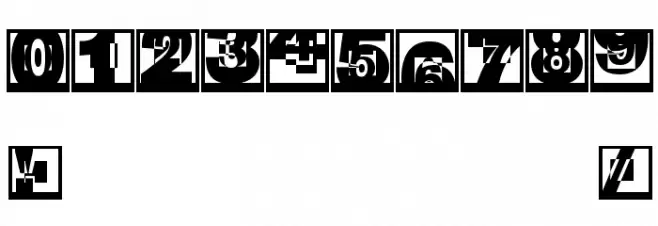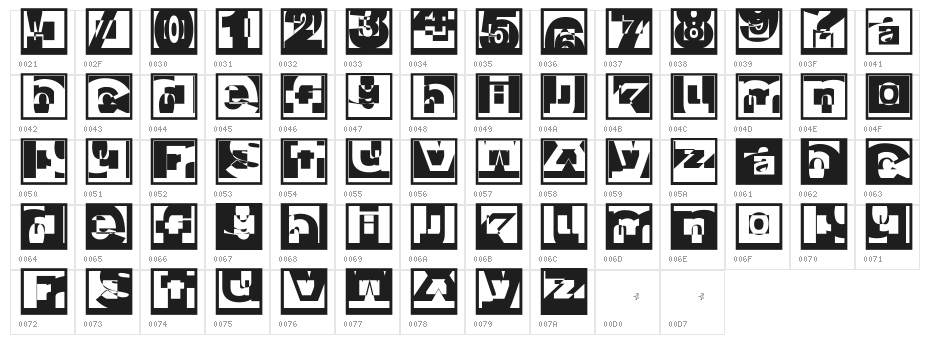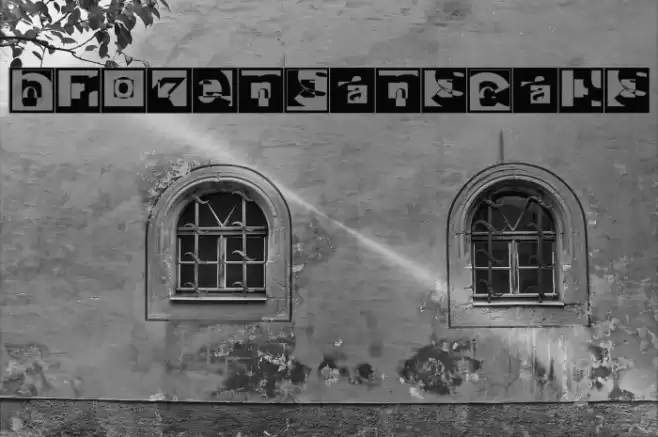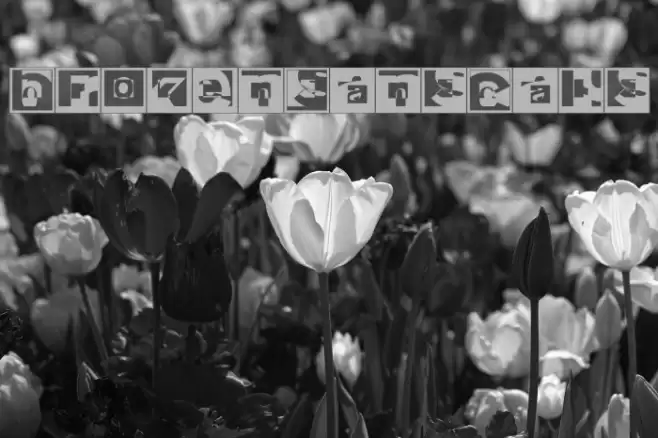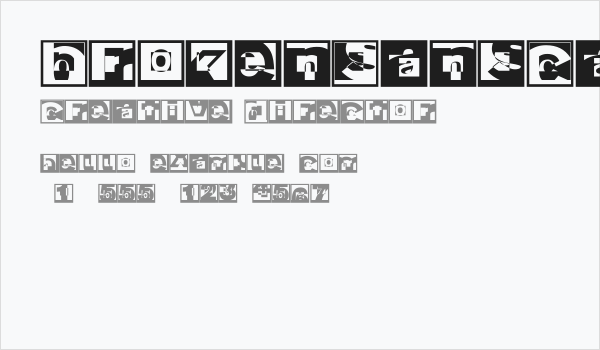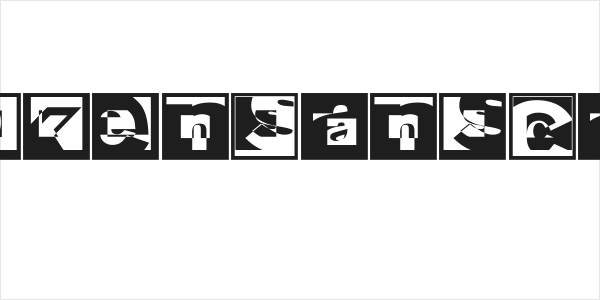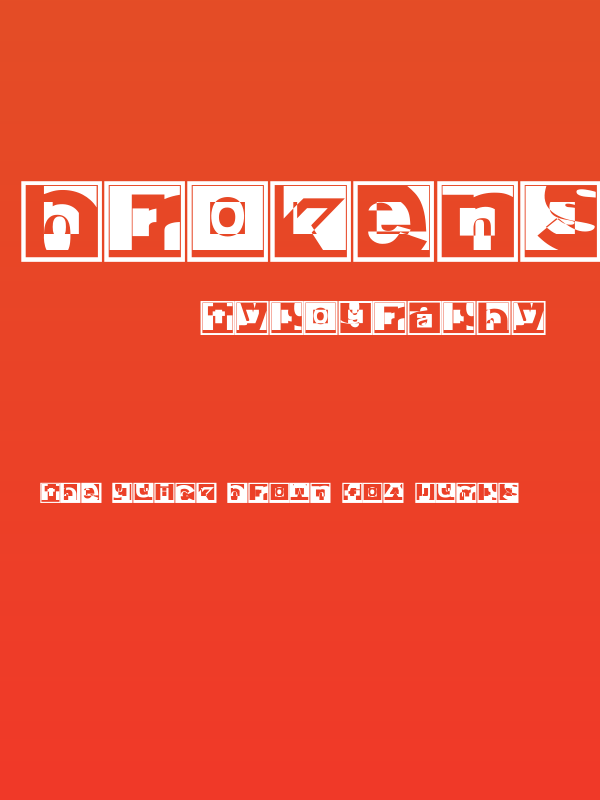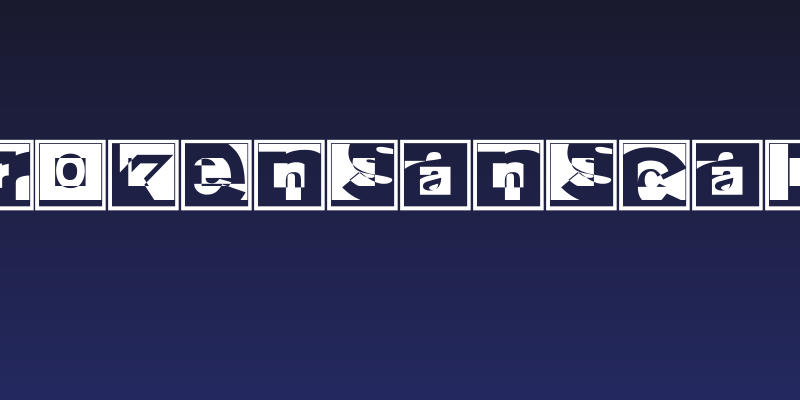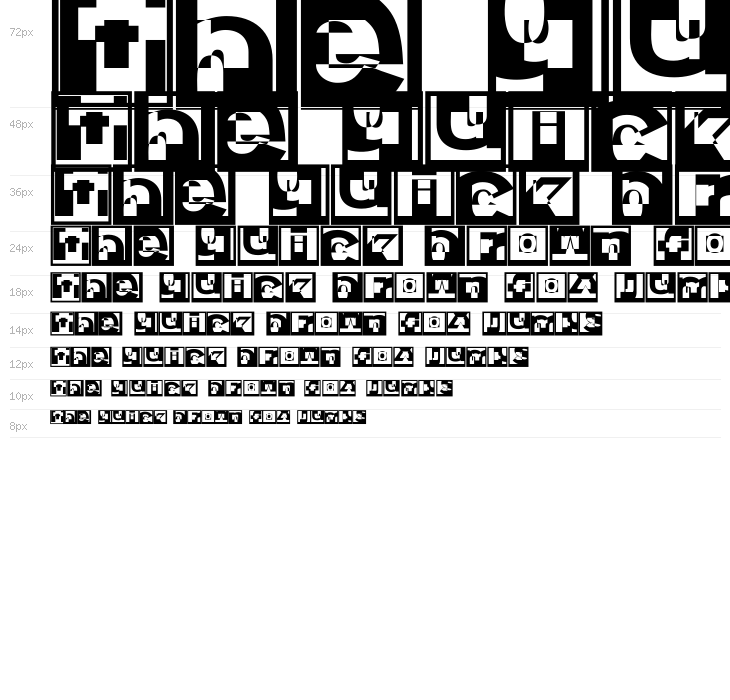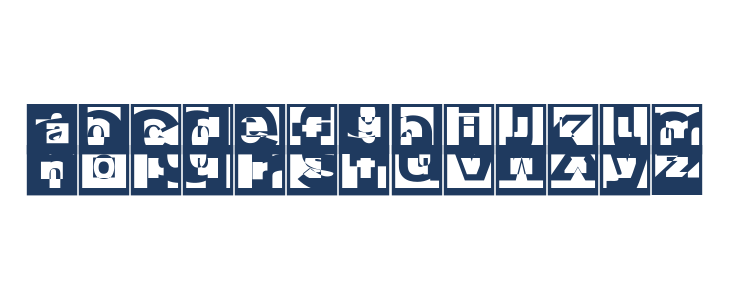
BrokenSansCaps Font
BrokenSansCaps Description
This font features a unique, fragmented design where each character appears as if it has been shattered or broken into pieces. The letters are encased in individual boxes, creating a striking visual effect that emphasizes the disjointed nature of the typeface. Despite its chaotic appearance, the font maintains a consistent structure, with each character clearly recognizable. The bold, sans-serif style adds to its modern and edgy aesthetic, making it suitable for projects that require a distinctive and unconventional look.
Overall StyleModern, Edgy
Proposed ProjectsIdeal for album covers, posters, and branding projects that seek to convey a sense of disruption or modernity.